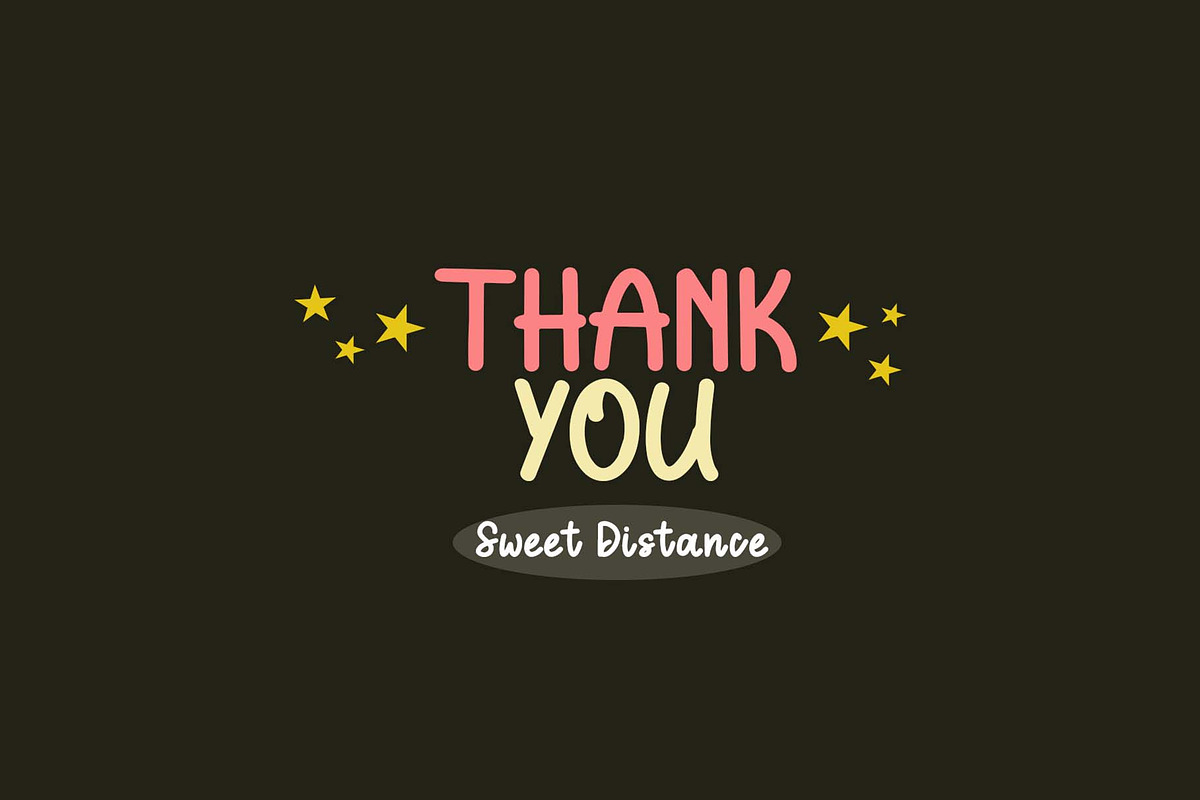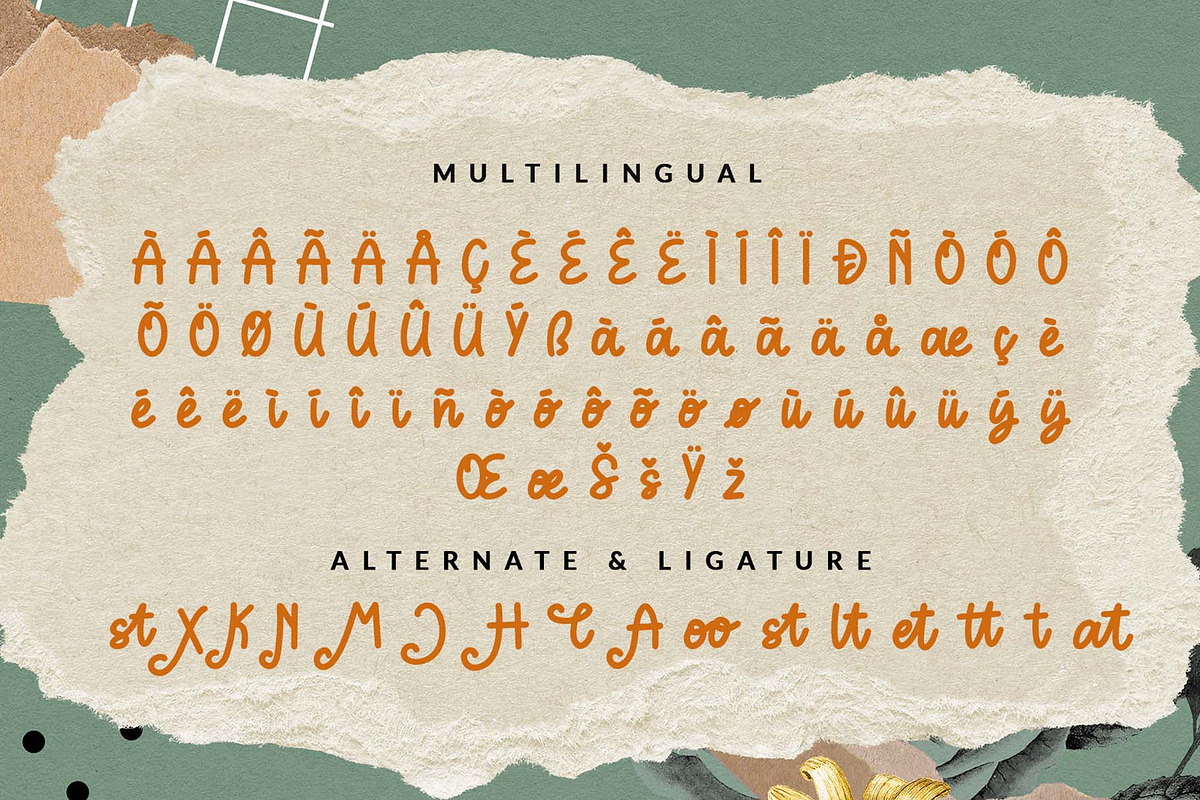
Sweet Distance
Sweet Distance is a Handwritten Style font by Wildan Type. It has flowing letters that will give your designs a unique and sweet look. Sweet Distance font is perfect; logos, greeting cards, a package design, a brand identity, craft design, any DIY project, book title, wedding invitation, packaging, and more.